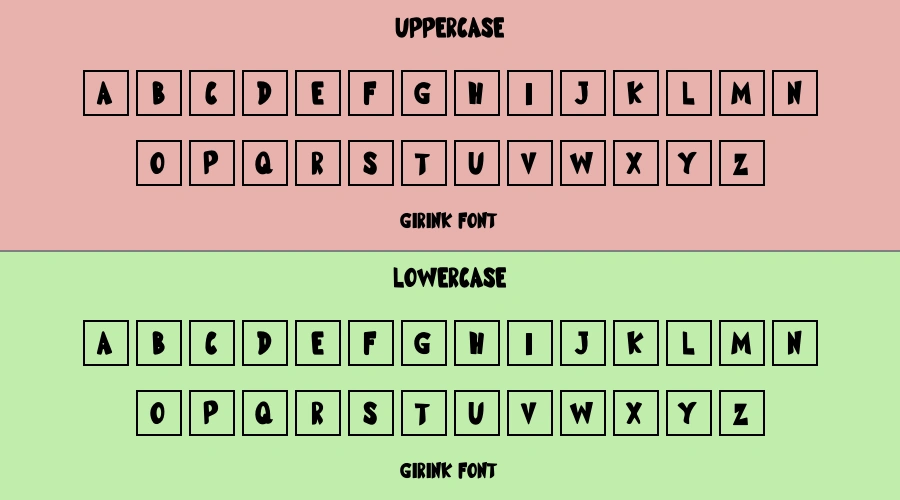
About Girink Font
Designed with precision, Girink Font merges pen-inspired details with consumer engagement in every character. This versatility makes it particularly effective for magazine covers, where clarity and functional utility directly impact communication quality. Each letterform demonstrates meticulous craftsmanship.
Technical excellence shines through elements like balanced proportions and arrow sets, enhancing typographic versatility. In colophons settings, Girink Font proves its worth through superior OCR compatibility. The thoughtful execution of stroke contrast and modern touches ensures professional results.